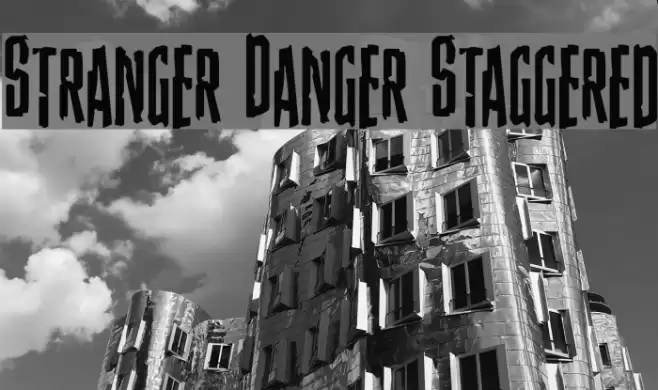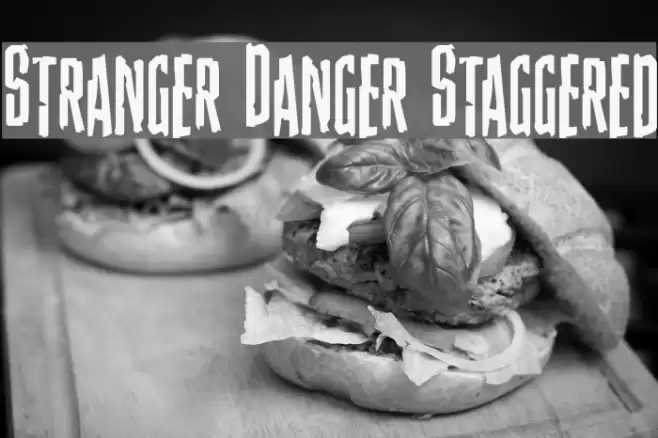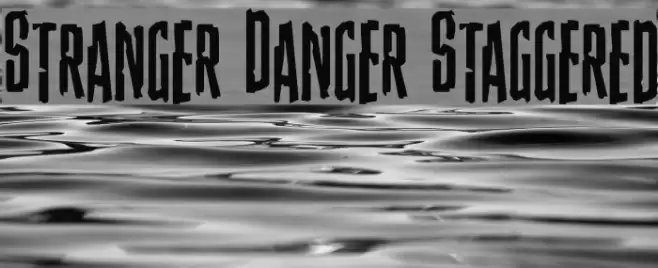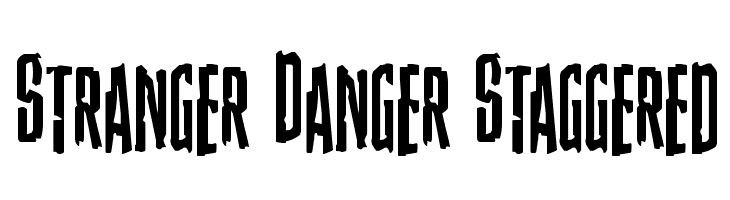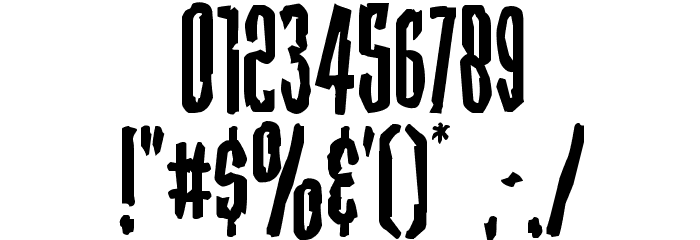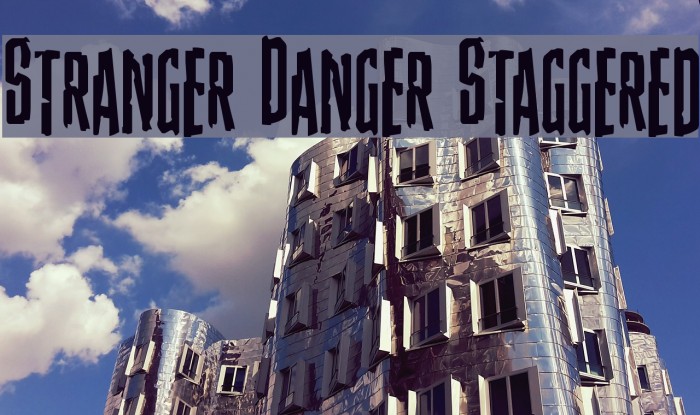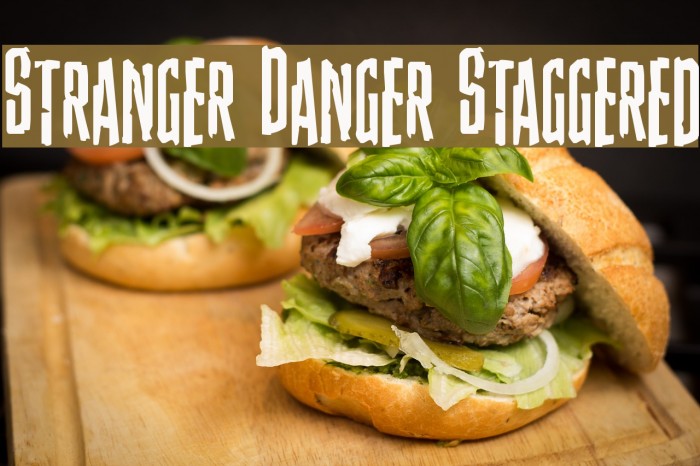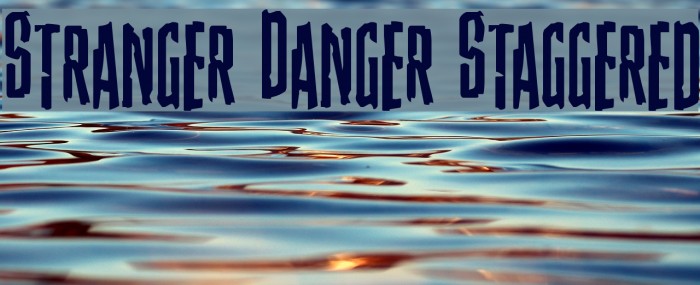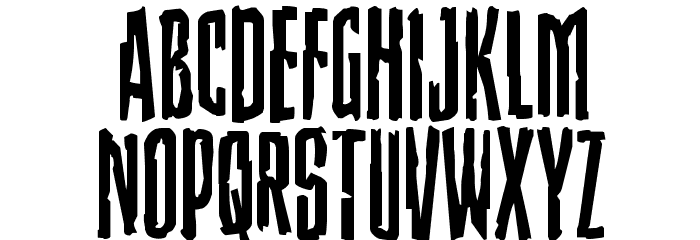
Stranger Danger Staggered Font
Stranger Danger Staggered Description
This font features a bold and dramatic style with a staggered, uneven appearance. The characters are tall and narrow, giving a sense of urgency and movement. The strokes are thick and irregular, adding a rugged and edgy feel. The uppercase letters dominate the design, while the numbers and special characters maintain the same boldness and irregularity. This font is highly distinctive and eye-catching, suitable for projects that require a strong visual impact.
A bold, staggered font with a rugged and edgy style from Uncategorized fonts.
- Proposed Projects: Ideal for posters, album covers, and branding that requires a bold and unconventional look.
- Character Spacing: Tight